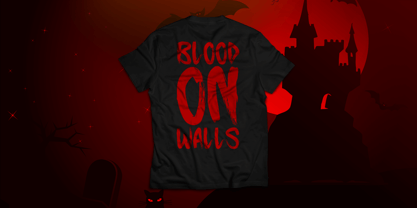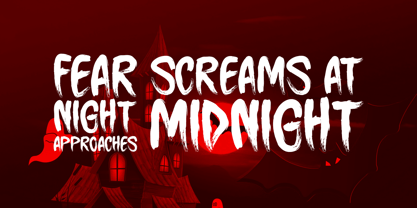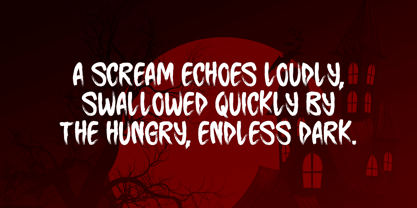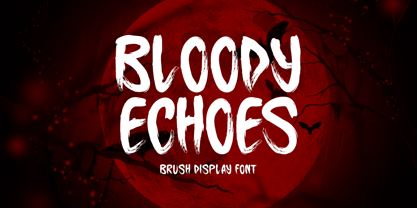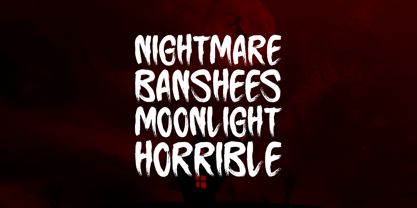
Bloody Echoes
by Seemly Fonts
The Bloody Echoes Font Family was designed by Md. Sohail Bhuiyan and published by Seemly Fonts. Bloody Echoes contains 1 styles. More about this family
Bloody Echoes is a bold brush display font infused with a chilling Halloween-inspired touch. Its rough strokes and eerie style make it a perfect choice for spooky projects such as posters, flyers, apparel, music artwork, and web graphics. Versatile and expressive, it also works beautifully for stationery, logos, print design, and social media visuals. Whether you’re creating haunting invitations, eerie branding, or dramatic seasonal designs, Bloody Echoes delivers a striking presence that captures the spirit of Halloween.